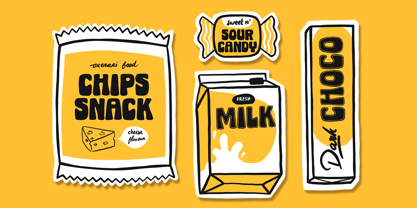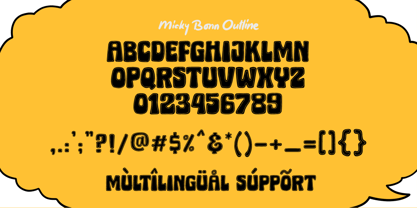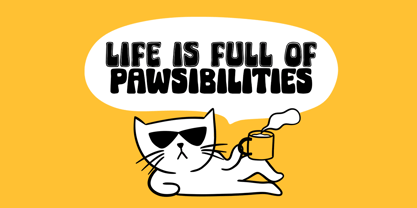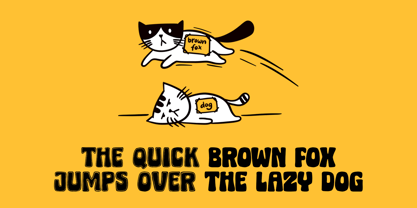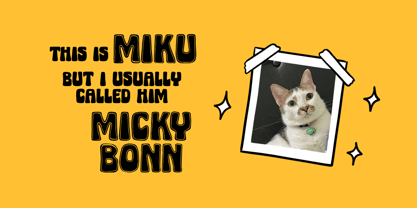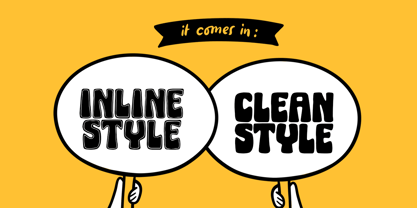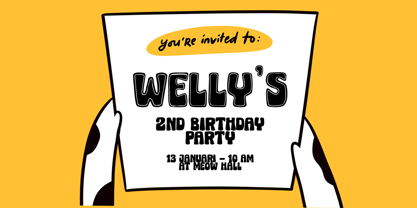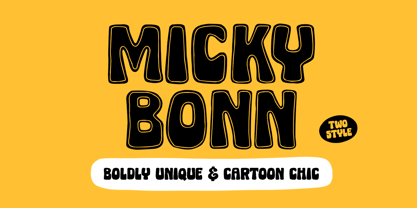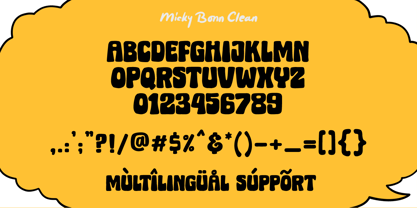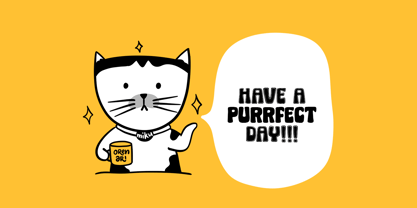
Micky Bonn
The Micky Bonn Font Family was designed by Lia Wijayanti and published by Orenari. Micky Bonn contains 2 styles and family package options. More about this family
Introducing Micky Bonn: The Boldly Unique & Cartoon Chic Font
Elevate your creative projects to new heights with our latest font creation - Micky Bonn. Inspired by Miku, my cute cat, my everyday inspiration. It has two styles: inline style and clean style.
Boldly Unique: Micky Bonn stands apart with its distinct blend of boldness and charm. Every letter is meticulously crafted to exude confidence and capture attention, making it perfect for headlines, logos, and branding that demand a memorable presence.
Cartoon Chic: This font isn't just a typeface; it's an artistic expression. Its endearing cartoon-inspired details add a touch of nostalgia and warmth to your designs, invoking a sense of approachability that resonates with all audiences. Whether you're designing for children or the young at heart, Micky Bonn strikes the perfect balance between lightheartedness and professionalism.
Handwritten Elegance: The handwritten elements of Micky Bonn infuse a sense of authenticity and personal touch into your projects. Each stroke carries the fluidity of a human hand, creating an intimate connection with your audience that traditional fonts simply can't replicate.
Versatile Creativity: Micky Bonn is a versatile companion for various design applications. From posters and invitations to packaging and social media graphics, its adaptability ensures that your creative vision can be brought to life effortlessly.
Whether you're a graphic designer, content creator, or branding enthusiast, Micky Bonn is your ultimate tool for crafting captivating visuals that leave a lasting impression. Unleash your creativity and let Micky Bonn bring your ideas to life with its bold-cartoon handwriting style that's bound to leave a mark on every design it graces. Embrace the playful elegance of Micky Bonn and watch your designs come to life in ways you've never imagined.